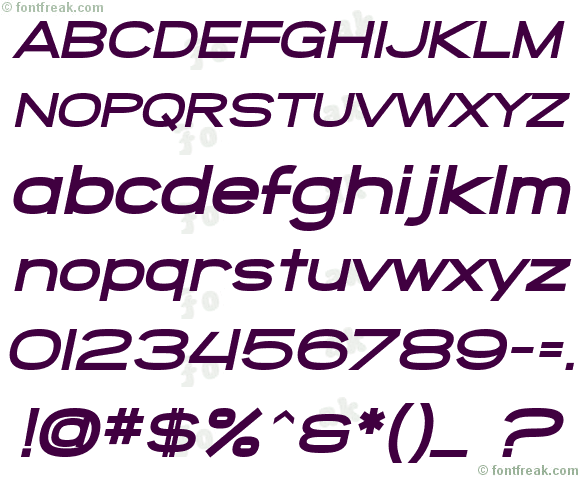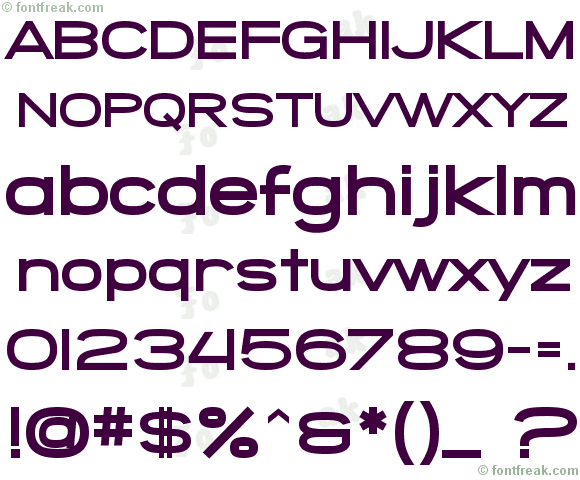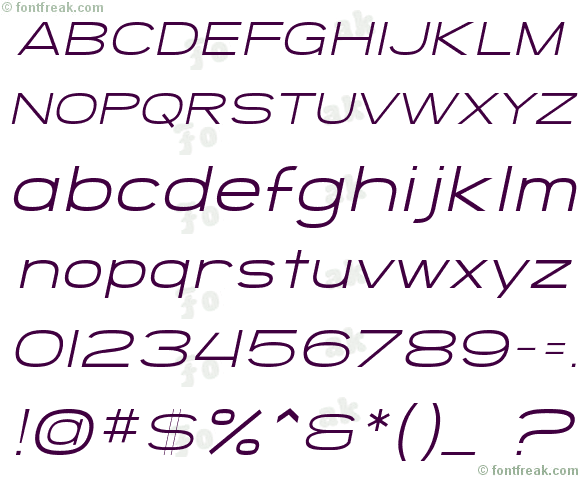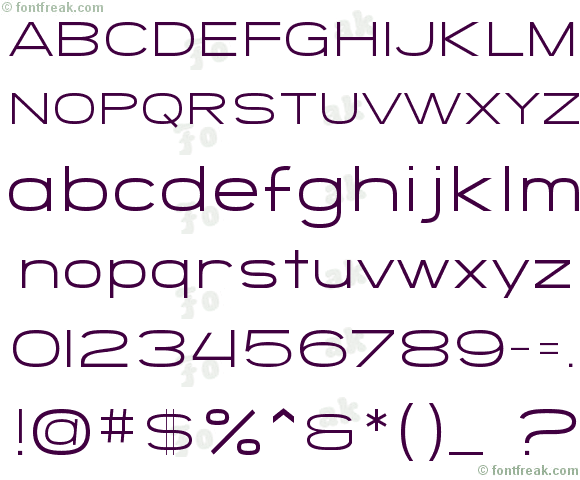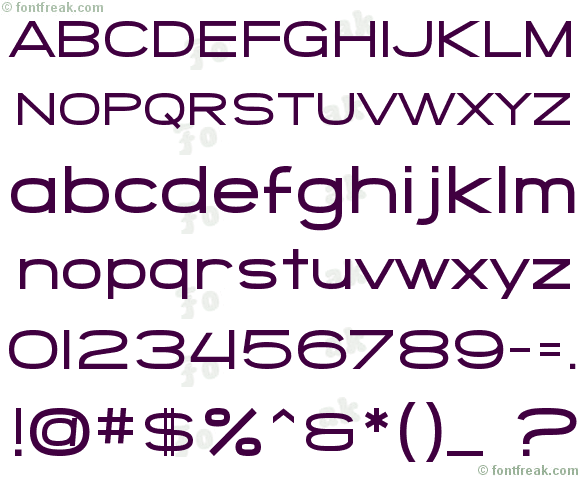
About Grandezza
Grandezza is a versatile sans-serif typeface designed by Shyfonts Type Foundry, perfect for a wide range of creative projects. This font is available as freeware, making it an accessible choice for anyone looking to enhance their design toolkit. Grandezza features a clean and modern aesthetic with a balanced stroke weight that offers excellent legibility. The font displays a subtle contrast in its letterforms, characterized by smooth curves and sharp angles, which adds a contemporary flair without sacrificing readability. The spacing between characters is thoughtfully designed to ensure clarity in both large headings and smaller text.
This font excels in numerous applications, making it an ideal choice for graphic designers and small business owners alike. Its elegant yet approachable style makes it perfect for wedding invitations, where it can convey both sophistication and warmth. Additionally, Grandezza is well-suited for movie posters, allowing titles to stand out dramatically against vivid backgrounds. Restaurant menus can benefit from its clean lines, ensuring that dish names are both appealing and easy to read. Furthermore, content creators can utilize this font for social media graphics, giving their posts a polished and professional look.
The target audience for Grandezza spans graphic designers, small business owners, and content creators seeking to elevate their projects with a stylish font. What makes Grandezza truly stand out is its ability to blend modernity with accessibility, making it a versatile tool for a wide variety of design needs. Whether you’re creating something elegant or playful, the Grandezza font free download offers an excellent solution for enhancing your visual communication. Embrace this typeface and let it elevate your designs to new heights.